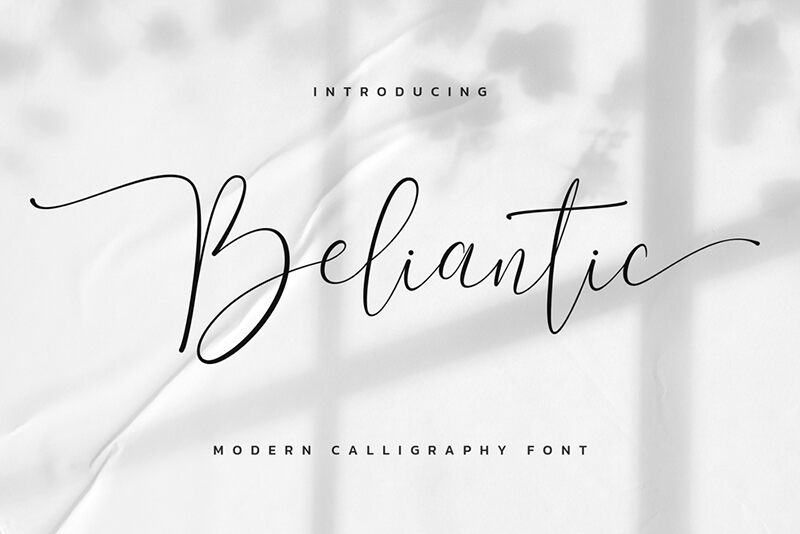
Beliantic is a whimsical and elegant handwritten font by designer Hamber Perdiansyah. Its thin weight makes it perfect for projects that require a delicate touch, such as wedding invitations, greeting cards, or feminine branding campaigns. This font exudes a sense of playfulness and sophistication that would also be well-suited for fashion or beauty blogs, product packaging, or social media graphics. Beliantic's unique style captures the essence of hand-lettering while providing a modern twist on traditional calligraphy. Add a touch of charm to your next project with Beliantic!
Beliantic
Hamber Perdiansyah